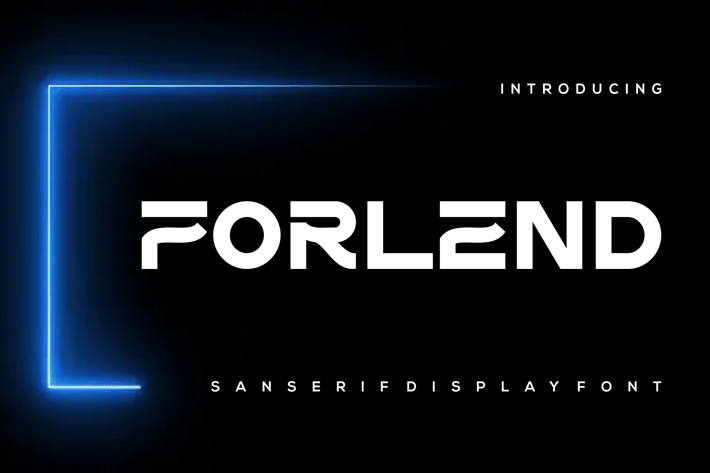
Forlend Font
Introducing our new product Forlend Font - Modern Font
Forlend Font - Modern Font is a bold and authentic display font. The font is suitable for any branding project like logo, esport, and many more. outstanding in a wide range of contexts.